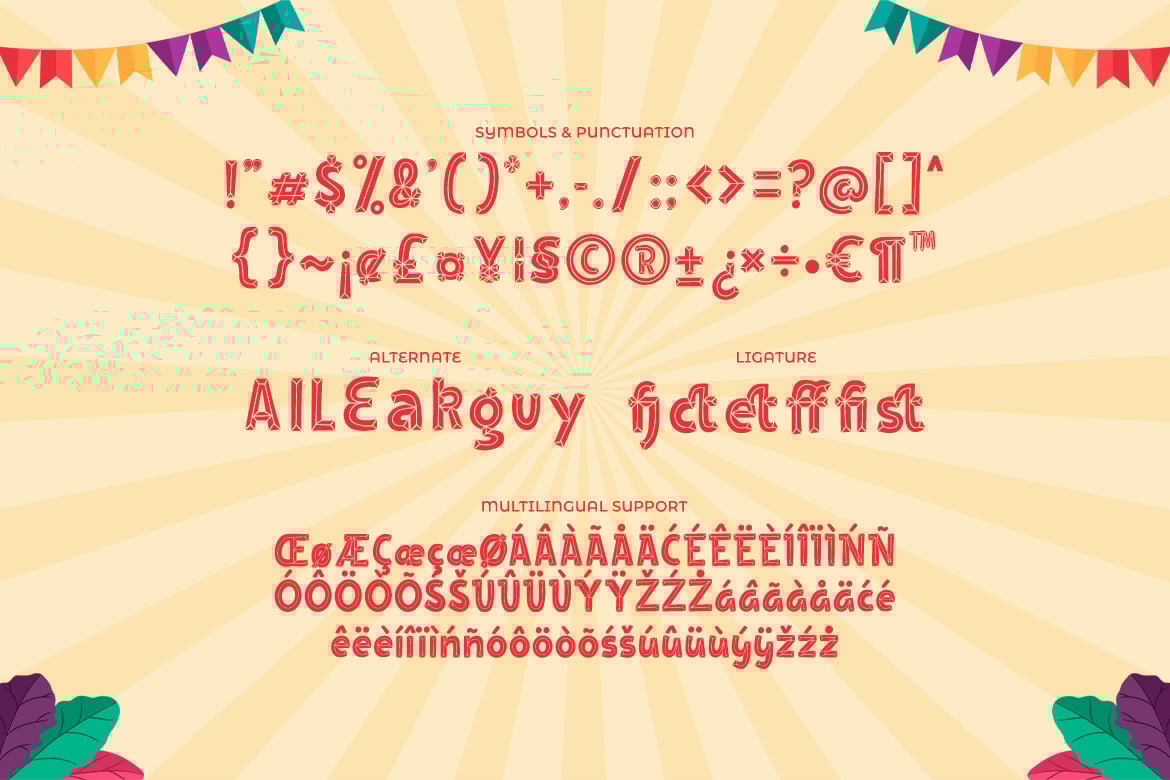
After Party – Bevel Display Typeface
After Party is a bevel decorative font
This font will look outstanding in any context, whether it’s being used on busy backgrounds or as a standalone headline especially on aesthetic design!